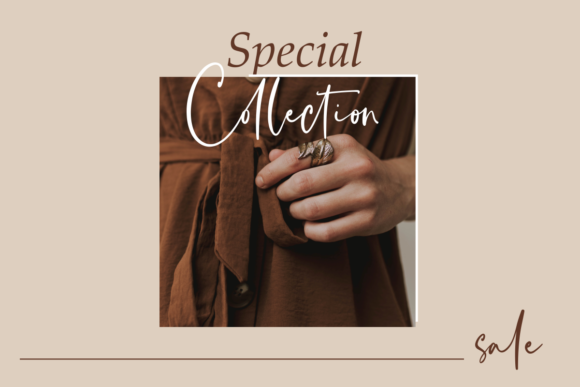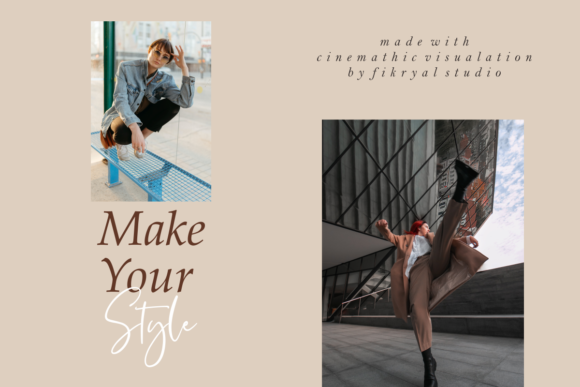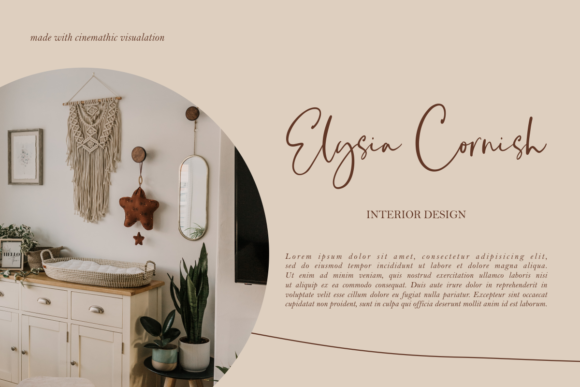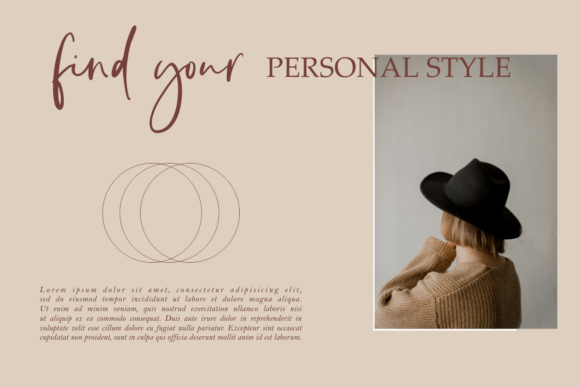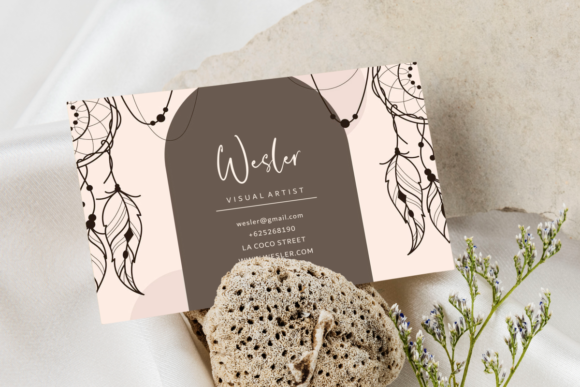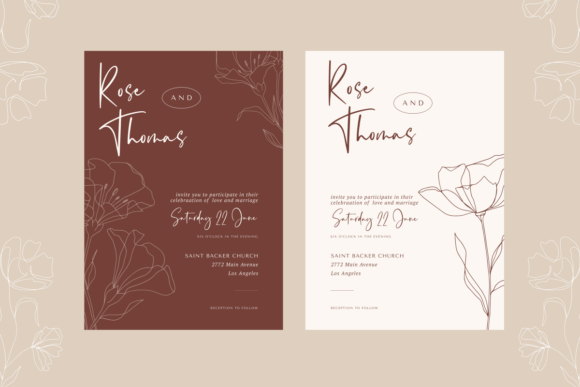
Cinemathic Visualation Font: Elevate Your Designs with Elegant Script
In the world of typography, a well-crafted font can make all the difference in elevating your designs to new heights. For designers and crafters seeking to add a touch of sophistication and elegance to their work, the Cinemathic Visualation Font is an exceptional choice. This stunning script font boasts a contemporary atmosphere and impeccable form, drawing inspiration from timeless classic calligraphy.
The Essence of Cinemathic Visualation
Cinemathic Visualation is more than just a font – it’s an experience. With its elegant and fluid strokes, this font is perfect for creating beautiful headings, titles, and quotes that demand attention. The design team behind Cinemathic Visualation has meticulously crafted each glyph to ensure that it exudes a sense of refinement and luxury, making it an ideal choice for high-end branding, packaging, and editorial projects.
One of the standout features of Cinemathic Visualation is its PUA (Private Use Area) encoding. This means that designers can access all the glyphs and swashes with ease, allowing for a seamless design experience. The PUA encoding ensures that you can effortlessly navigate the font’s extensive character set, including alternates, ligatures, and ornaments, to create stunning text arrangements that showcase your creativity.
Key Features of Cinemathic Visualation Font
- Elegant Script Design: Cinemathic Visualation boasts a beautiful, flowing script style that’s perfect for creating eye-catching headings and titles.
- Contemporary Atmosphere: The font’s modern aesthetic ensures that your designs feel fresh and current, while still maintaining a sense of sophistication.
- PUA Encoded: Easy access to all glyphs and swashes, making it simple to experiment with different text arrangements.
- Timeless Classic Calligraphy Inspiration: Cinemathic Visualation draws inspiration from traditional calligraphy, ensuring that your designs feel rooted in tradition while still pushing the boundaries of modern design.
Applications for Designers and Crafters
Cinemathic Visualation is an incredibly versatile font that can be used in a wide range of design applications, including:
- Branding and Packaging: Create stunning logos, business cards, and product packaging that exudes luxury and sophistication.
- Editorial Design: Use Cinemathic Visualation to create beautiful headings, titles, and quotes for magazines, books, and newspapers.
- Digital Design: Elevate your digital designs, including website headers, social media graphics, and email marketing campaigns.
- Crafting and DIY Projects: Add a touch of elegance to your crafting and DIY projects, such as handmade cards, invitations, and scrapbooking.
Tips for Getting the Most Out of Cinemathic Visualation
To truly unlock the potential of Cinemathic Visualation, here are a few tips to keep in mind:
- Experiment with Swashes and Glyphs: Take advantage of the font’s PUA encoding to experiment with different swashes and glyphs, creating unique and eye-catching text arrangements.
- Mix and Match with Other Fonts: Combine Cinemathic Visualation with other fonts to create striking contrast and visual interest.
- Pay Attention to Kerning and Tracking: Ensure that your text looks its best by paying close attention to kerning and tracking, making adjustments as needed to create a seamless reading experience.
Cinemathic Visualation Font is an exceptional choice for designers and crafters seeking to add a touch of elegance and sophistication to their work. With its beautiful script design, contemporary atmosphere, and PUA encoding, this font is sure to elevate your designs to new heights. Whether you’re working on a branding project, editorial design, or crafting and DIY project, Cinemathic Visualation is the perfect tool to help you achieve your creative vision.